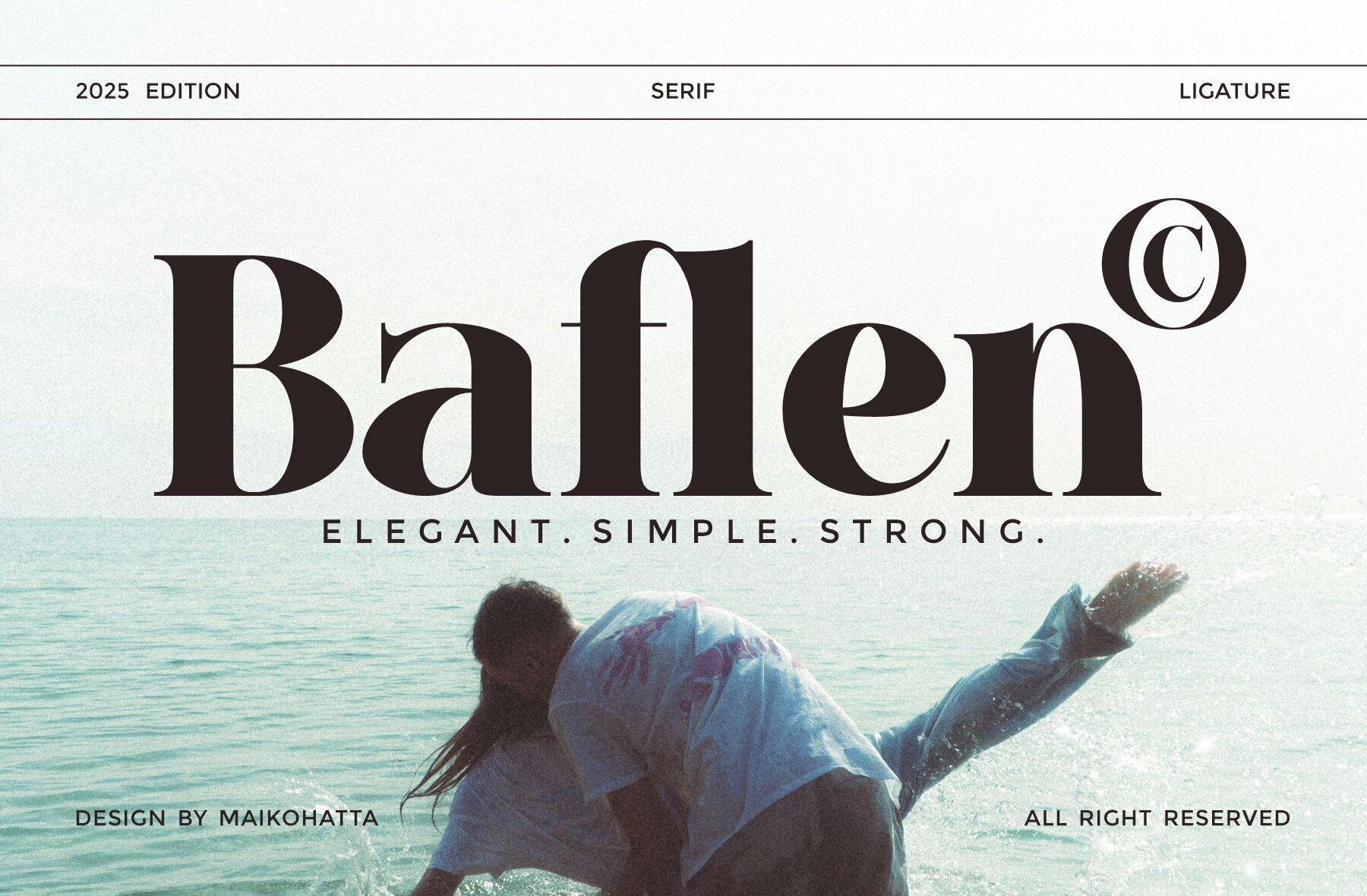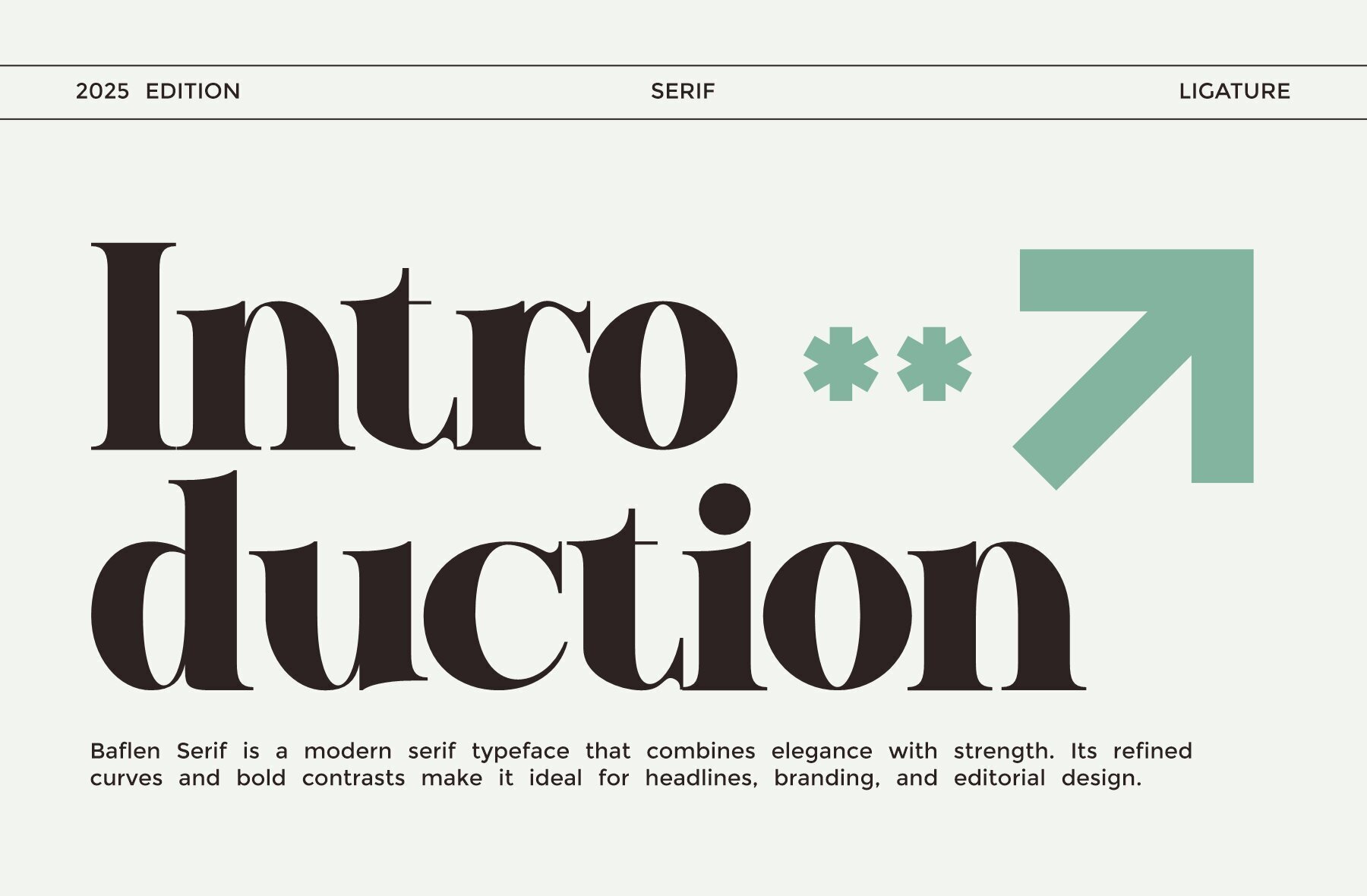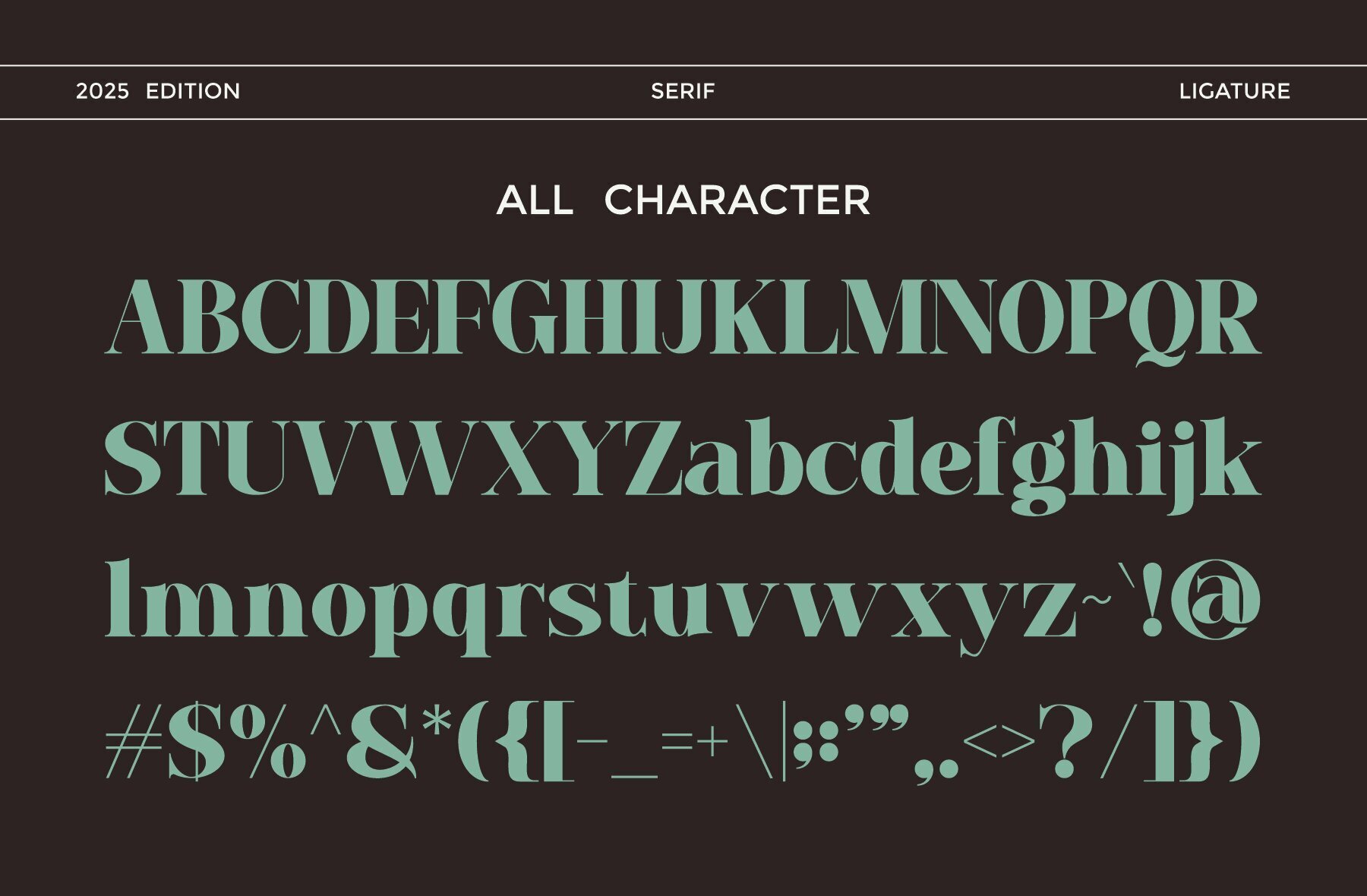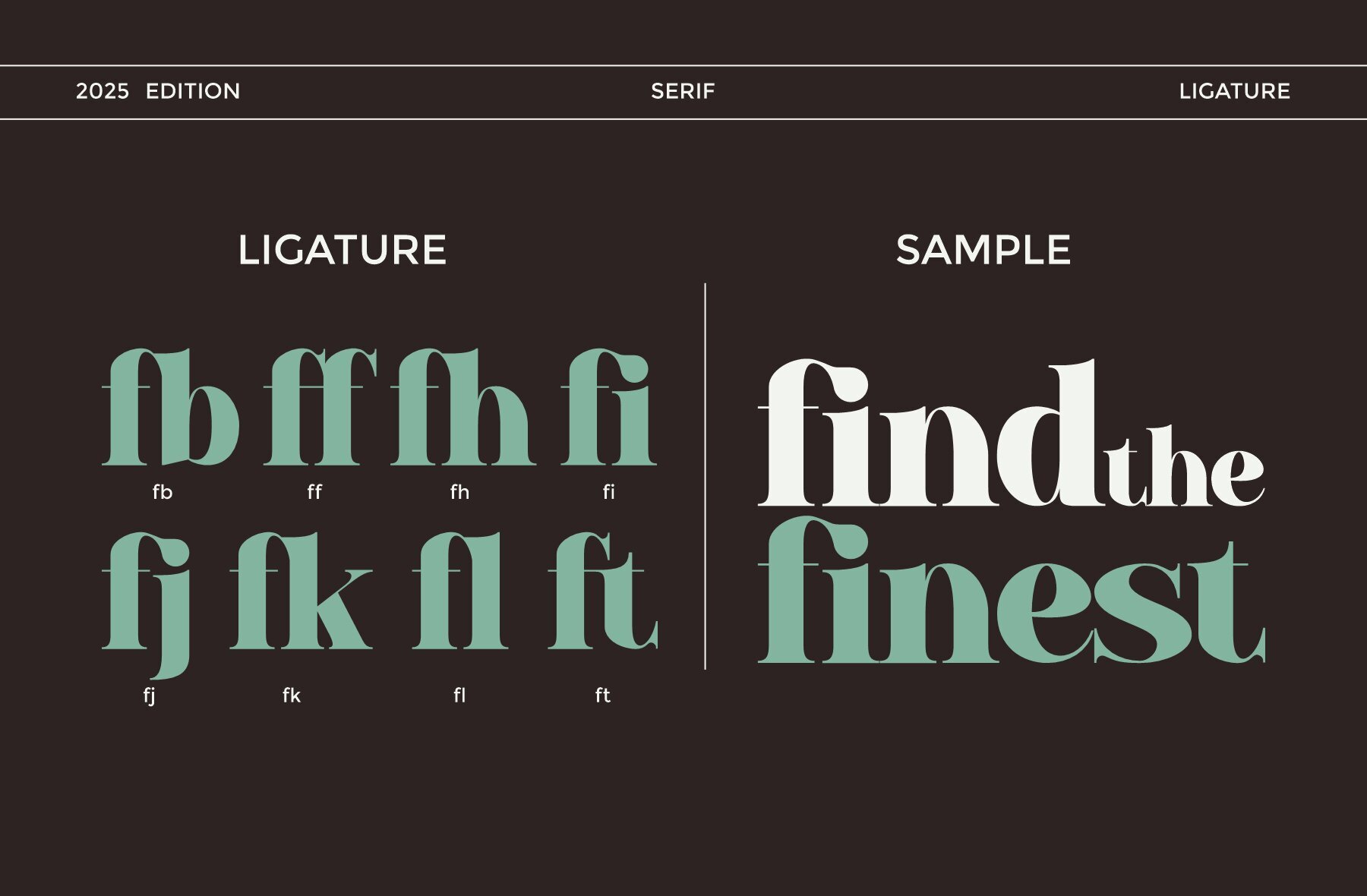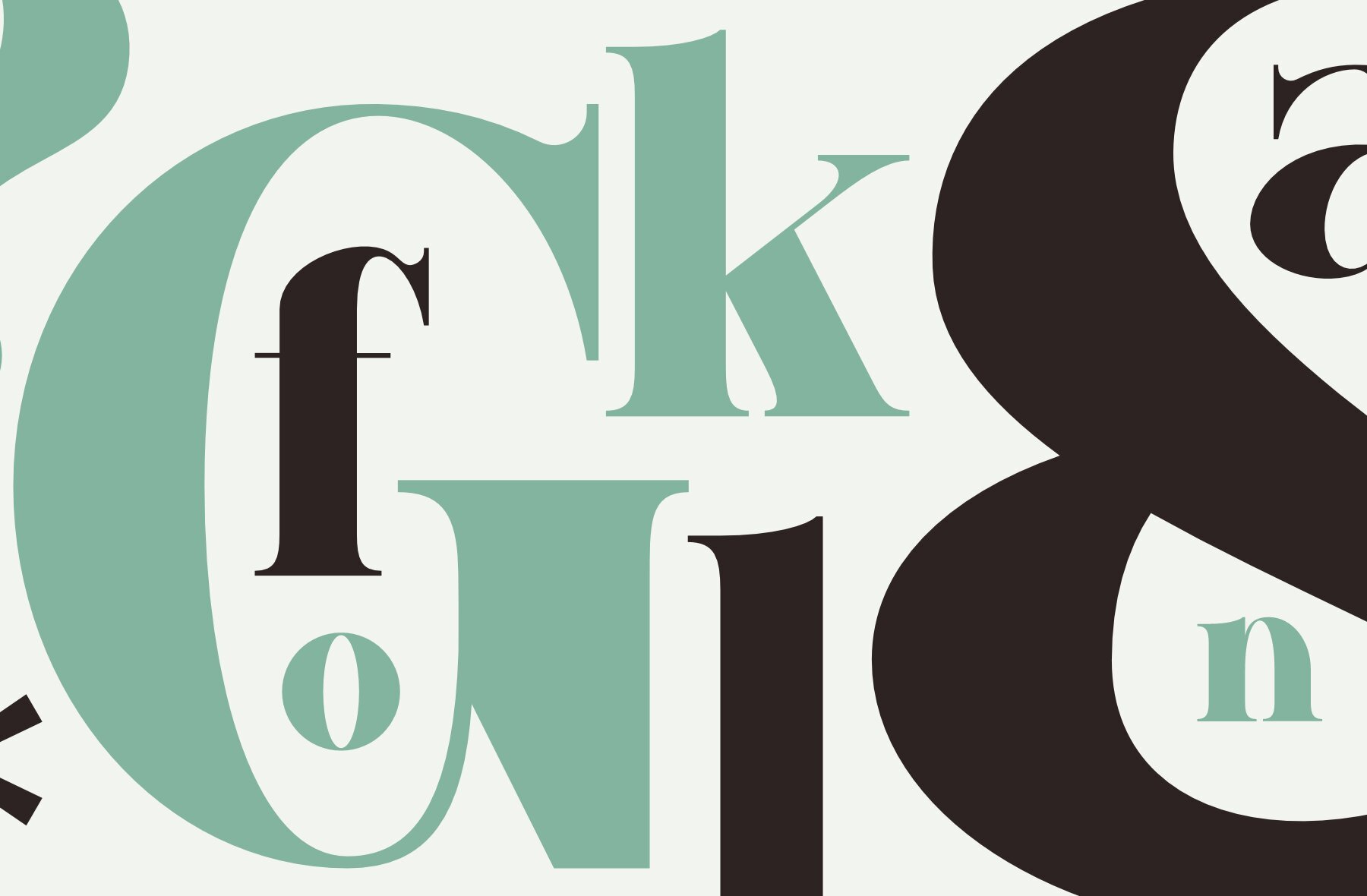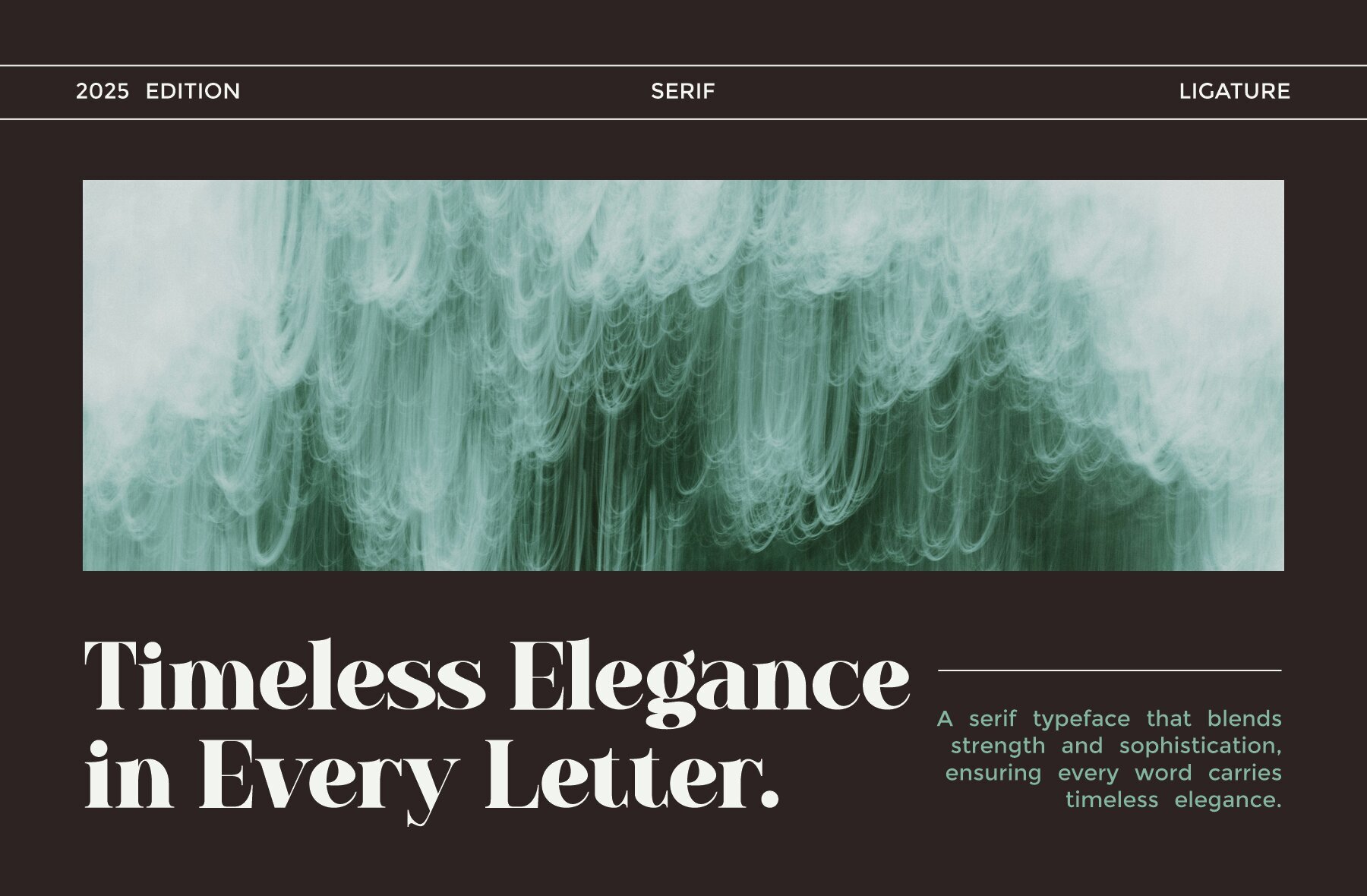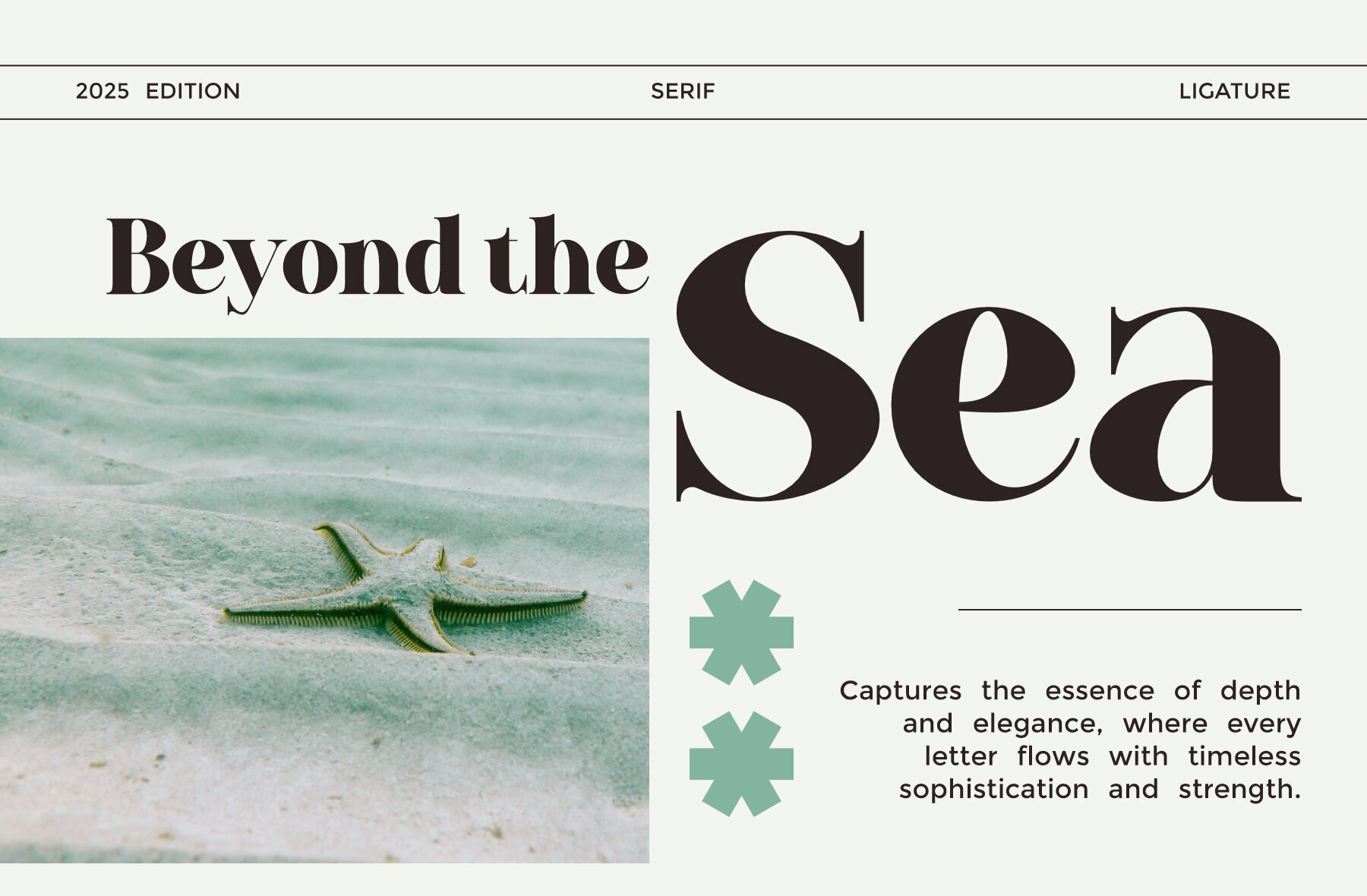
Baflen Font
Baflen
Baflen brings together modern sophistication and enduring character in a versatile serif typeface. Its bold letterforms are crafted with graceful curves and high contrast strokes, balanced by refined serifs for a distinctive presence. The thoughtful design focuses on proportion and clarity, making Baflen ideal for branding, editorial layouts, and standout headlines. This typeface offers unique ligatures and subtle details that add visual interest without overpowering your content. Its structure ensures legibility while enhancing the visual impact of minimalistic or authoritative design projects. Baflen is well-suited for designers seeking a font that delivers both elegance and strength with a modern sensibility.Baflen – Modern Serif Typeface